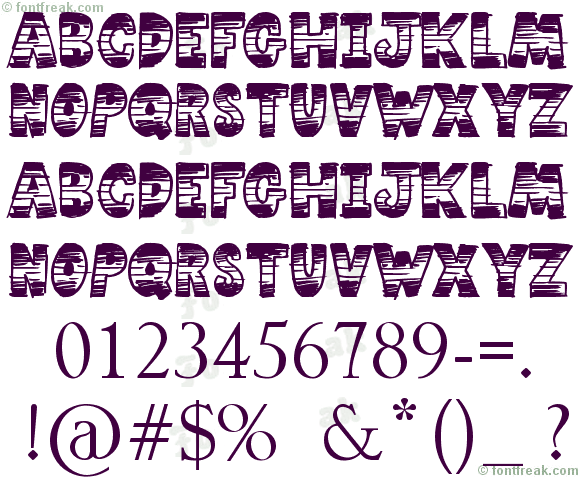
Comic Strip
The Comic Strip font, designed by Jonathan S. Harris, falls into the decorative category, offering a playful and whimsical style that captures the essence of comic book art. This font showcases a unique blend of bold, chunky letters with a slightly irregular appearance, reminiscent of hand-drawn characters. The stroke weight varies, giving each letter a dynamic feel, while the playful spacing between characters enhances its comic-like aesthetic. The decorative elements, such as the striped patterns and uneven edges, add a layer of charm and creativity, making it visually engaging.
Ideal for various creative applications, the Comic Strip font is perfect for designing eye-catching movie posters, vibrant children's book covers, and fun event flyers. It can also be effectively used in branding for businesses that want to convey a light-hearted, approachable image, such as ice cream shops or toy stores. Content creators will find this font useful for social media graphics and blog headers, as it captures attention and conveys a sense of joy and playfulness.
The target audience for this font includes graphic designers seeking to add a touch of whimsy to their projects, small business owners looking to create memorable branding, and content creators who want to infuse their work with personality. Its versatility and distinctive style make it a valuable addition to any designer's toolkit.